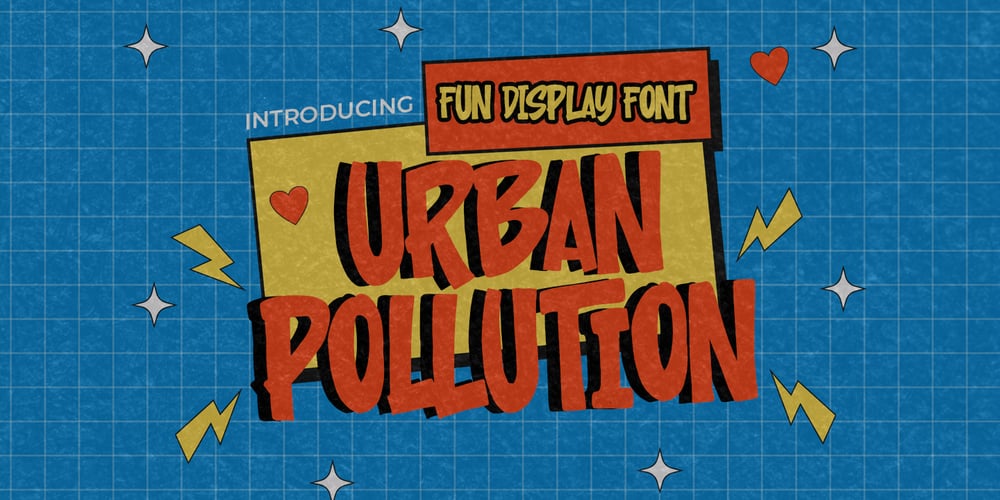
Urban Pollution Font Family was designed by Abdul Malik Wisnu, Anang Fibriyanto and published by Gassstype. Urban Pollution contains 1 styles and family package options. Urban Pollution is a Fun Display Font that will make your designs look modern, unique and fun.It’s perfect for labels, quotes, posters, DIY projects, branding, packaging, greeting cards, websites, photography overlays, signs, window art, scrapbooking, tags and so much more!